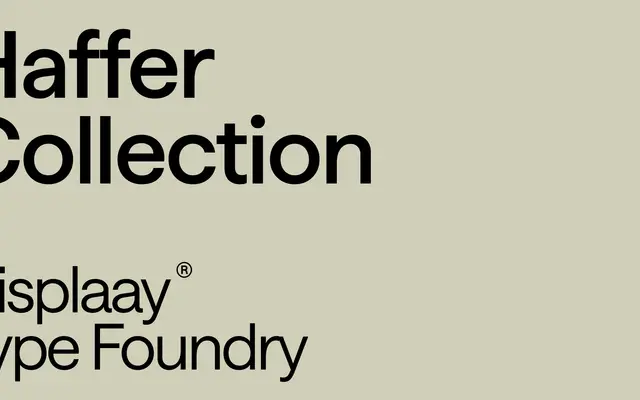
A six-family collection spanning proportional, semi-mono and mono variants across two x-heights, totalling 96 styles with a four-axis variable font.
The Haffer Collection comprises three structural designs — Proportional, SemiMono and Mono — each available in a standard and an extended x-height (XH) variant, yielding six discrete families and 96 styles in total. Each family runs eight weights from Thin to Black with matching italics, and the variable font exposes axes for weight, slant, mono interpolation and x-height. Multilingual support covers Latin, Greek and Cyrillic with 1,132 characters per style.
Haffer presents as a geometric sans-serif with a clean, contemporary structure. The collection spans proportional, semi-mono and mono subfamilies, all sharing the same underlying geometric character.